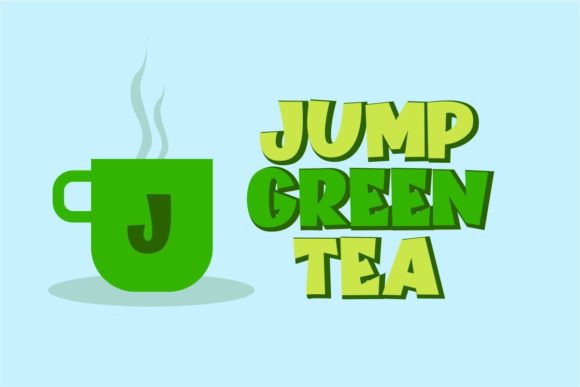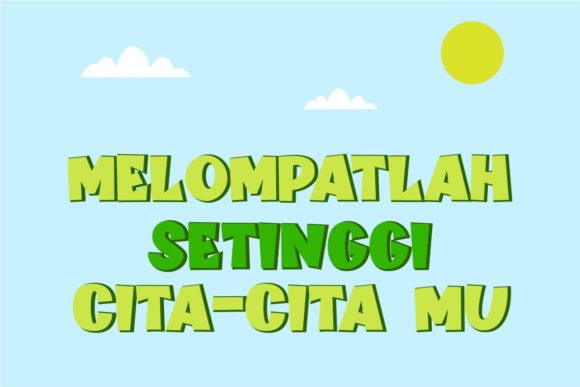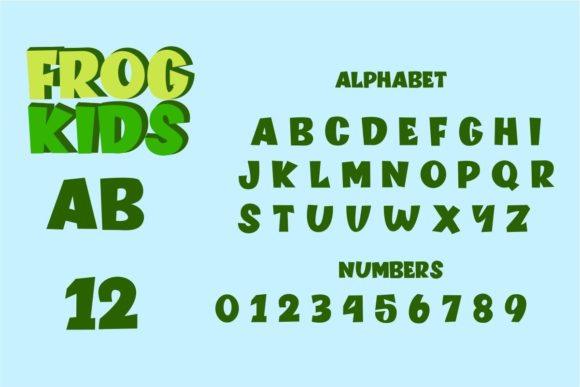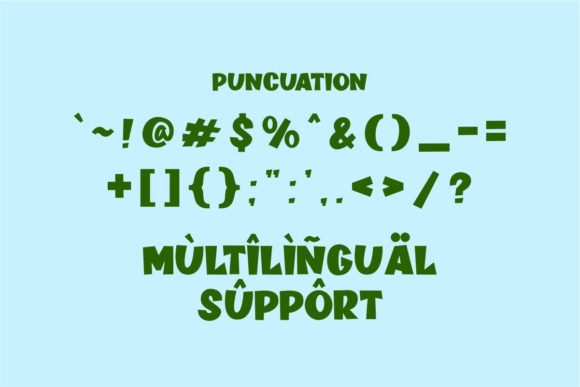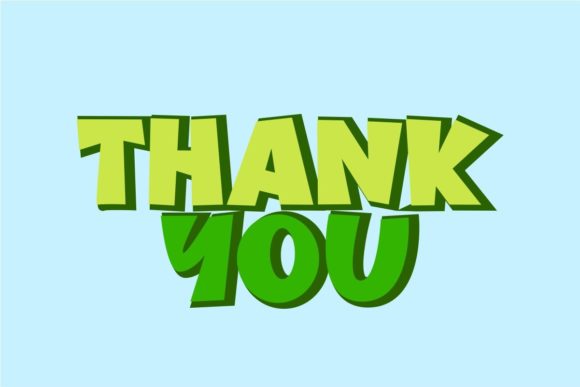
Frog Kids Font: The Perfect Addition to Your Design Collection
Are you a designer or crafter looking for a font that adds a playful touch to your creations? Look no further than Frog Kids Font! This adorable, chunky lettered font is perfect for a variety of projects, from cartoon-related designs to children’s games and more. In this article, we’ll dive into the features and benefits of Frog Kids Font, and explore how you can use it to take your designs to the next level.
What is Frog Kids Font?
Frog Kids Font is a fun and playful display font that is sure to capture the attention of your audience. With its cute and chunky lettering, this font is perfect for designs that require a lighthearted and youthful touch. The font is highly legible, making it suitable for use in a variety of contexts, from titles and headings to body text.
Key Features of Frog Kids Font
- Cute and Chunky Lettering: Frog Kids Font features adorable, chunky lettering that is sure to delight your audience.
- Fun and Playful: This font is perfect for designs that require a playful touch, from cartoon-related designs to children’s games.
- Highly Legible: Despite its chunky design, Frog Kids Font is highly legible, making it suitable for use in a variety of contexts.
- Versatile: This font can be used in a range of designs, from titles and headings to body text.
Who is Frog Kids Font for?
Frog Kids Font is perfect for a range of designers and crafters, including:
- Graphic Designers: If you’re a graphic designer looking for a fun and playful font to add to your collection, Frog Kids Font is a great choice.
- Illustrators: If you’re an illustrator working on cartoon-related projects, this font is perfect for adding a playful touch to your designs.
- Crafters: If you’re a crafter who loves to create handmade cards, gift tags, and other paper crafts, Frog Kids Font is a great addition to your design toolkit.
How to Use Frog Kids Font
Frog Kids Font can be used in a variety of ways, including:
- Cartoon-Related Designs: Use Frog Kids Font to add a playful touch to your cartoon-related designs, from character names to dialogue bubbles.
- Children’s Games: This font is perfect for use in children’s games, from educational games to puzzle books.
- Handmade Cards and Gift Tags: Add a personal touch to your handmade cards and gift tags with Frog Kids Font.
- Social Media Graphics: Use this font to create fun and engaging social media graphics, from Facebook posts to Instagram stories.
Tips for Getting the Most out of Frog Kids Font
Here are a few tips for getting the most out of Frog Kids Font:
- Experiment with Colors: Frog Kids Font looks great in a range of colors, from bright and bold to pastel and soft.
- Pair with Other Fonts: Try pairing Frog Kids Font with other fonts to create a unique and eye-catching design.
- Use in Combination with Images: This font looks great when used in combination with images, from illustrations to photographs.
Frog Kids Font is a fun and playful display font that is perfect for designers and crafters looking to add a playful touch to their creations. With its cute and chunky lettering, this font is highly legible and versatile, making it suitable for use in a range of contexts. Whether you’re working on cartoon-related designs, children’s games, or handmade cards and gift tags, Frog Kids Font is a great choice. So why not give it a try and see how it can elevate your designs?